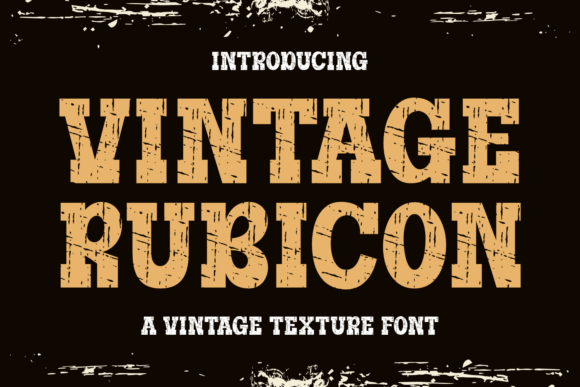
Vintage Rubicon Font: Elevate Your Designs with a Bold and Assertive Slab Serif Font
The world of typography is vast and diverse, with numerous font styles to choose from, each with its unique characteristics and uses. Among these, slab serif fonts have gained significant popularity for their robustness and versatility. One such font that has caught the attention of designers and typography enthusiasts alike is the Vintage Rubicon Font. This article aims to provide an in-depth look at the Vintage Rubicon Font, exploring its features, benefits, and applications in design.
What is Vintage Rubicon Font?
Vintage Rubicon is a bold and assertive slab serif font designed to make a statement. Its robust and sturdy appearance makes it perfect for headlines, titles, and any design element that requires a strong visual impact. The font’s slab serif characteristics give it a distinctive look that blends modernity with a touch of classic elegance.
Key Features of Vintage Rubicon Font
- Bold and Assertive: The font’s bold nature ensures it stands out in any design, making it ideal for grabbing attention.
- Slab Serif Design: The slab serif style gives the font a unique and contemporary look that can add depth to any creation.
- Versatility: Despite its bold appearance, Vintage Rubicon can be used across various design projects, from posters and logos to digital media and packaging.
- Elegance and Modernity: The font strikes a perfect balance between classic slab serif elements and modern typographic trends, making it suitable for a wide range of design aesthetics.
Applications of Vintage Rubicon Font
The versatility of Vintage Rubicon Font makes it an excellent choice for various design projects. Here are some of the areas where this font can make a significant impact:
- Advertising and Marketing: Use Vintage Rubicon for headlines and titles in advertisements, flyers, and marketing materials to grab attention and convey a strong message.
- Branding and Logos: The bold and assertive nature of the font makes it suitable for logos and brand names, especially for companies looking to project a strong and confident image.
- Packaging Design: Vintage Rubicon can add a touch of elegance and modernity to product packaging, making it stand out on store shelves.
- Digital Media: Whether it’s for website headers, social media graphics, or digital advertisements, this font can enhance the visual appeal of digital content.
- Print Media: For posters, brochures, magazines, and newspapers, Vintage Rubicon can be used to create compelling headlines and titles.
Tips for Using Vintage Rubicon Font Effectively
To maximize the impact of Vintage Rubicon Font in your designs, consider the following tips:
- Pair with Complementary Fonts: When using Vintage Rubicon for headlines, pair it with a simpler, sans-serif font for body text to create a balanced and harmonious design.
- Adjust Font Size: Experiment with different font sizes to emphasize certain elements and create visual hierarchy in your design.
- Play with Colors: While Vintage Rubicon can make a statement in black, consider using it in other colors to match your brand’s palette or the overall design theme.
- Limit Usage: Due to its bold nature, it’s best to use Vintage Rubicon sparingly to avoid overwhelming the viewer. Focus on key messages or highlights.
Comparison with Other Slab Serif Fonts
The typography landscape is filled with slab serif fonts, each with its unique characteristics. Here’s how Vintage Rubicon compares to other popular slab serif fonts:
- Compared to Museo: While Museo has a more refined and elegant feel, Vintage Rubicon offers a bolder and more assertive appearance.
- Compared to Rockwell: Rockwell has a classic and sturdy feel, but Vintage Rubicon brings a more contemporary and versatile edge to the table.
- Compared to Anton: Anton is known for its geometric and clean lines, whereas Vintage Rubicon provides a more traditional slab serif look with a bold personality.
Vintage Rubicon Font stands out as a versatile and impactful slab serif font that can elevate any design project. Its bold and assertive nature, combined with its elegant and modern aesthetic, makes it a valuable addition to any designer’s font library. Whether you’re working on advertising, branding, packaging, or digital media, Vintage Rubicon has the potential to make a significant impact. By understanding its features, applications, and best practices for use, designers can harness the full potential of this remarkable font.